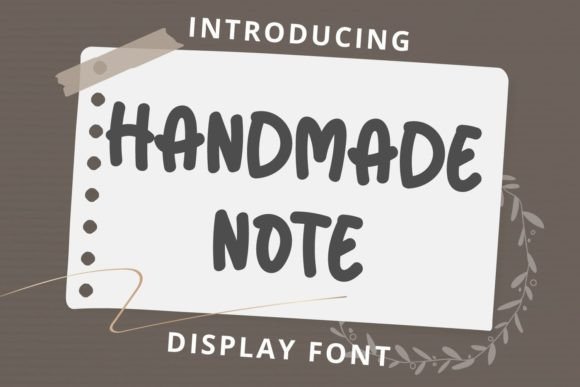
Introducing Handmade Note Font: A Unique Handwritten and Display Font
What is Handmade Note Font?
Handmade Note Font is a carefully crafted, handwritten font that exudes a sense of warmth, personality, and charm. Its unique and elegant style makes it perfect for a wide range of creative projects, from invitations and greeting cards to branding, packaging, and digital media. Whether you’re working on a personal or commercial project, this font is sure to make a lasting impression.
Key Features of Handmade Note Font
• Unique Handwritten Style: Handmade Note Font boasts a distinctive handwritten style that’s both elegant and playful. Its flowing lines, subtle imperfections, and varying letter heights give it a personal and organic feel.
• Display Font: This font is not only great for body text but also shines as a display font. Use it to create eye-catching headlines, titles, and captions that demand attention.
• Versatile: Handmade Note Font is incredibly versatile and can be used for a wide range of projects, including:
• Invitations and greeting cards
• Branding and packaging
• Digital media, such as social media graphics and blog posts
• Signage and advertising
• Easy to Read: Despite its creative and artistic style, Handmade Note Font remains highly legible, making it perfect for both short and long-form text.
Benefits of Using Handmade Note Font
• Add a Personal Touch: With Handmade Note Font, you can add a personal and human touch to your creations, setting them apart from generic, cookie-cutter designs.
• Enhance Your Brand: If you’re a business owner or marketer, this font can help you establish a unique brand voice and aesthetic that resonates with your audience.
• Save Time: No need to spend hours creating custom lettering or illustrations – Handmade Note Font provides a beautiful, pre-designed solution.
• Increase Engagement: The unique and eye-catching style of this font is sure to capture attention and engage your audience, whether it’s through social media, advertising, or other channels.
Tips for Using Handmade Note Font
• Experiment with Colors: This font looks great in a variety of colors, so don’t be afraid to experiment and find the perfect hue to match your brand or design.
• Mix and Match: Combine Handmade Note Font with other fonts or design elements to create a unique and visually appealing composition.
• Pay Attention to Kerning: As with any font, make sure to adjust the kerning to ensure optimal readability and aesthetics.
Font Name Handmade Note Font